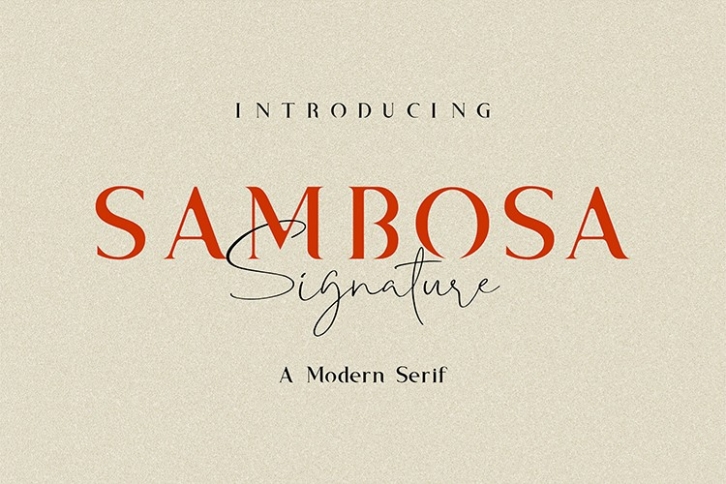
Sambosa Serif With Signature is a trendy and unique font with an authentic style. It was designed by HanzelStudio and it's a great choice for creative people who need such a font. It was released on October 15, 2019 and the file size is 17.86 MB. Sambosa Serif With Signature will add an organic vibe to any design idea!